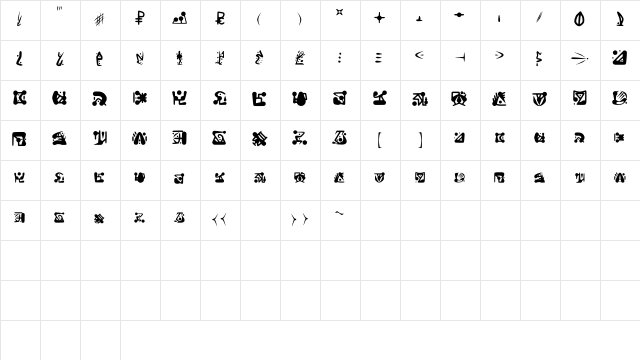
Lomtrian Medium
Design Context for Lomtrian Typeface
Lomtrian is a composed and adaptable typeface that performs quietly and consistently across a wide range of design contexts.